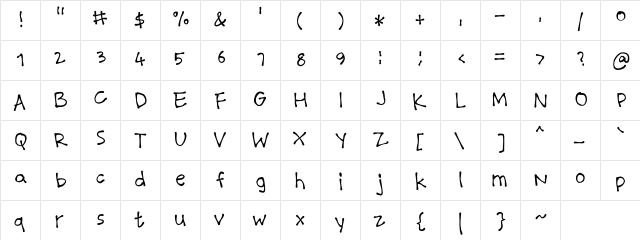
Black n Blue Regular
Design Context for Black n Blue Typeface
Black n Blue is a composed and adaptable typeface that performs quietly and consistently across a wide range of design contexts.